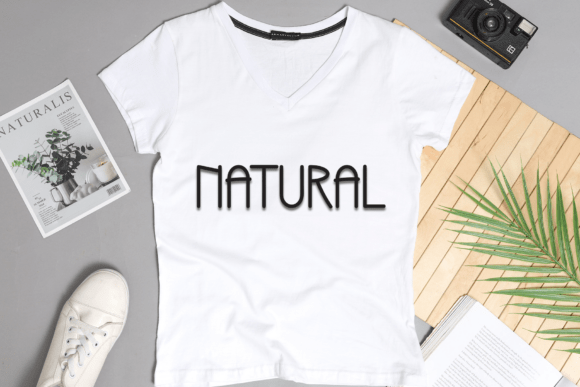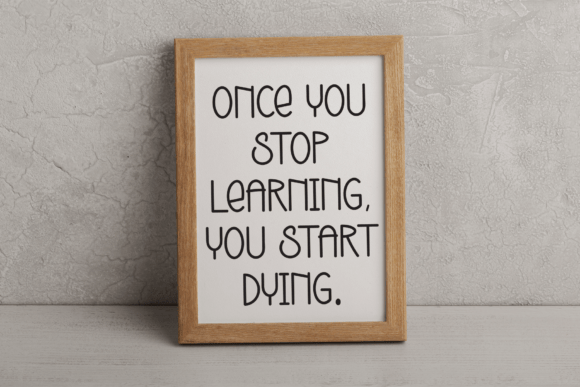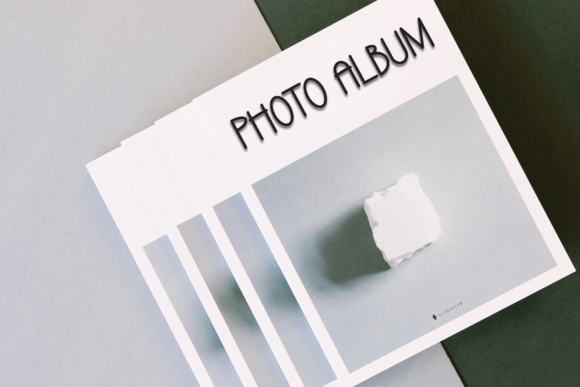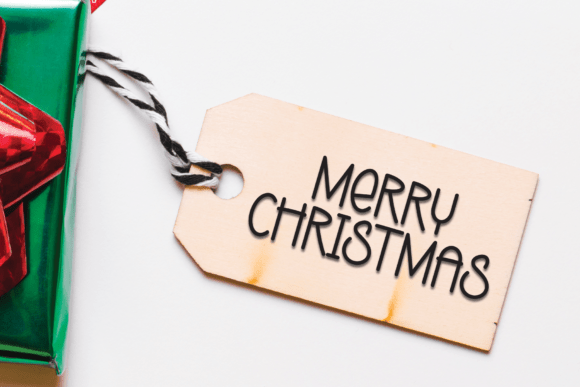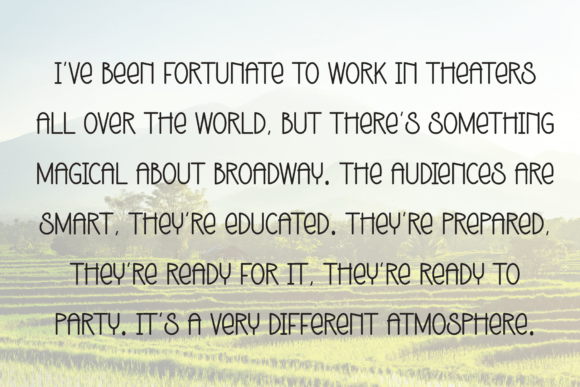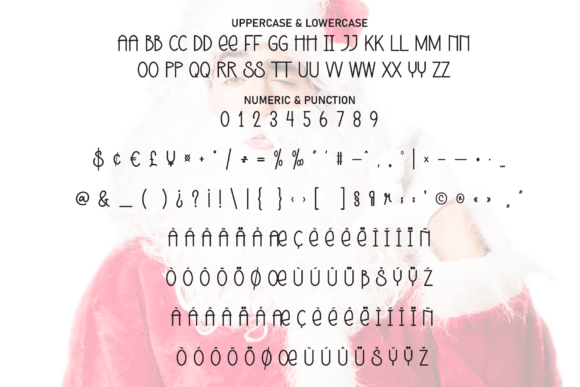
Getting into the Holiday Spirit with the Perfect Font
It’s that time of the year when creativity knows no bounds, and inspiration strikes in the most unexpected ways. You’re browsing through a festive market, sipping hot cocoa, and suddenly, an idea pops into your head – a Christmas card design that exudes warmth and personality. As you begin to sketch out your vision, you realize that the right font can make all the difference in capturing the essence of the holiday season.
Enter the Hello Santa Font, a casual handwritten font that embodies the spirit of authentic handwriting with a modern twist. Designed to add a personal touch to your designs, it’s perfect for quotes, invitations, branding, and social media posts. With its effortless style and versatile character, this font delivers both readability and charm, making it a valuable addition to any designer’s toolkit.
Hello Santa Font Key Features
- Unique Characteristics: This font features a playful, handwritten style with a festive touch, making it perfect for holiday-themed designs, cards, and gift tags.
Hello Santa Font Review
I recently had the chance to work with the Hello Santa Font, and I must say it’s a delightful addition to any winter-themed design project. ✨ The font’s playful, handwritten feel immediately evokes the magic of the holiday season. It’s perfect for creating invitations, social media posts, or any other content that needs a touch of festive cheer.
One of the things I appreciate most about Hello Santa Font is its versatility. ✨ It comes in a range of weights and styles, making it easy to customize for different applications. I also love the font’s organic, hand-drawn quality – it adds a unique, personal touch to any design.
However, I did encounter a few limitations. ⚠️ For one, the font may not be suitable for large blocks of text, as the irregular spacing and letterforms can make it difficult to read. Additionally, the font’s whimsical nature may not be to everyone’s taste – some people may find it too playful or immature.
Overall, I think Hello Santa Font is a wonderful choice for designers looking to add some holiday cheer to their projects. While it may have some limitations, its unique personality and versatility make it a valuable addition to any font collection.
Pros:
- Playful, handwritten feel
- Range of weights and styles
- Organic, hand-drawn quality
Cons:
- May not be suitable for large blocks of text
- Not to everyone’s taste
Hello Santa Font Practical Application Guide
Use Hello Santa Font for festive and holiday-themed projects, such as Christmas cards, gift tags, and party invitations.
Combine Hello Santa Font with other festive elements, such as holly leaves and snowflakes, to create a cohesive and seasonal look.